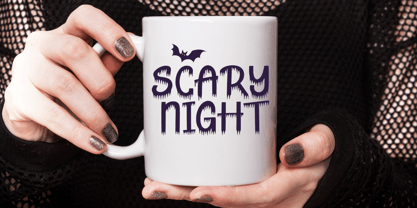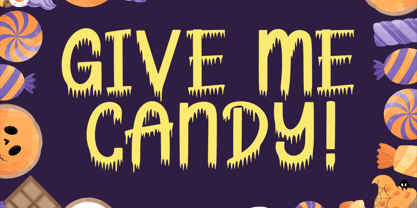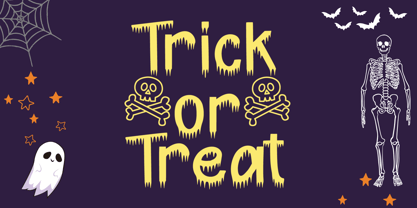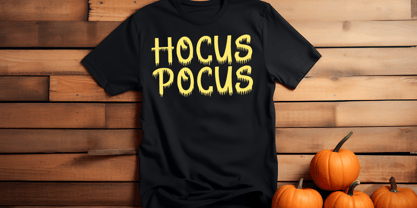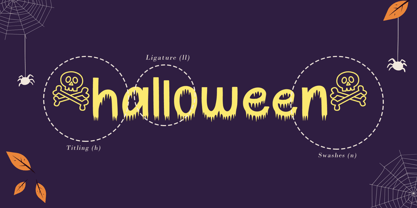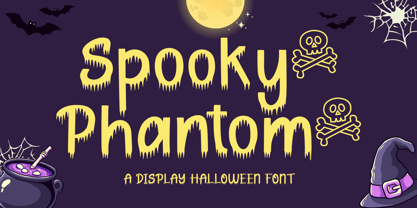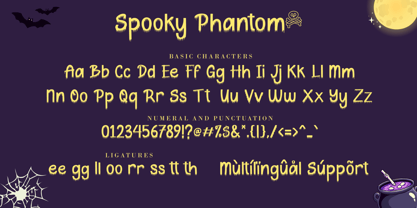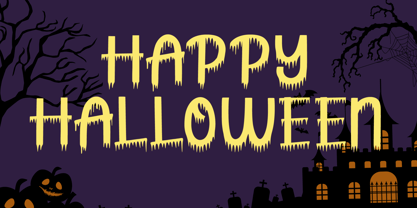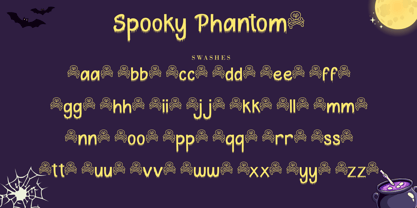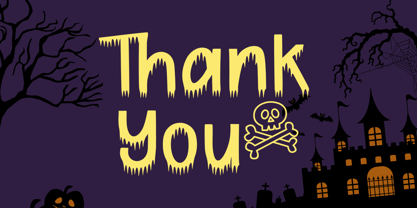
Spooky Phantom
by AEN Creative Studio
The Spooky Phantom Font Family was designed by Agung Eko Nugroho and published by AEN Creative Studio. Spooky Phantom contains 2 styles and family package options. More about this family
Spooky Phantom – a playful yet mysterious font that captures the fun side of Halloween. With its bold and quirky letterforms, it’s perfect for a wide range of seasonal projects, from party posters and social media graphics to mugs, t-shirts, and craft designs. Whether you’re creating spooky invitations or eye-catching merchandise, Spooky Phantom adds that extra Halloween charm without being too scary. This font blends festive charm with just a touch of spookiness, making it perfect for both kids’ and adults’ Halloween creations.
Designers: Agung Eko Nugroho
Foundry: AEN Creative Studio